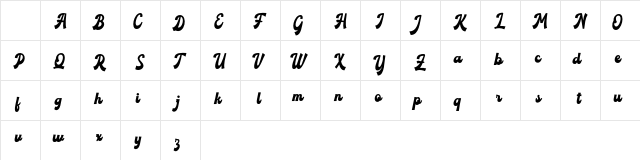
Complete Roxinate DEMO Bold glyph index. Displaying only characters natively supported by Roxinate DEMO Bold font.
Roxinate DEMO is a composed and adaptable typeface that performs quietly and consistently across a wide range of design contexts. Its bold stroke weight gives it real presence on the page.